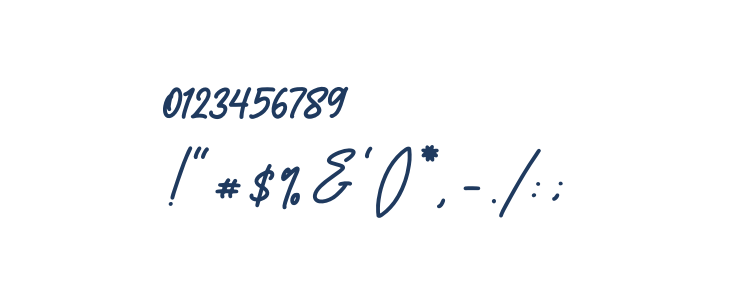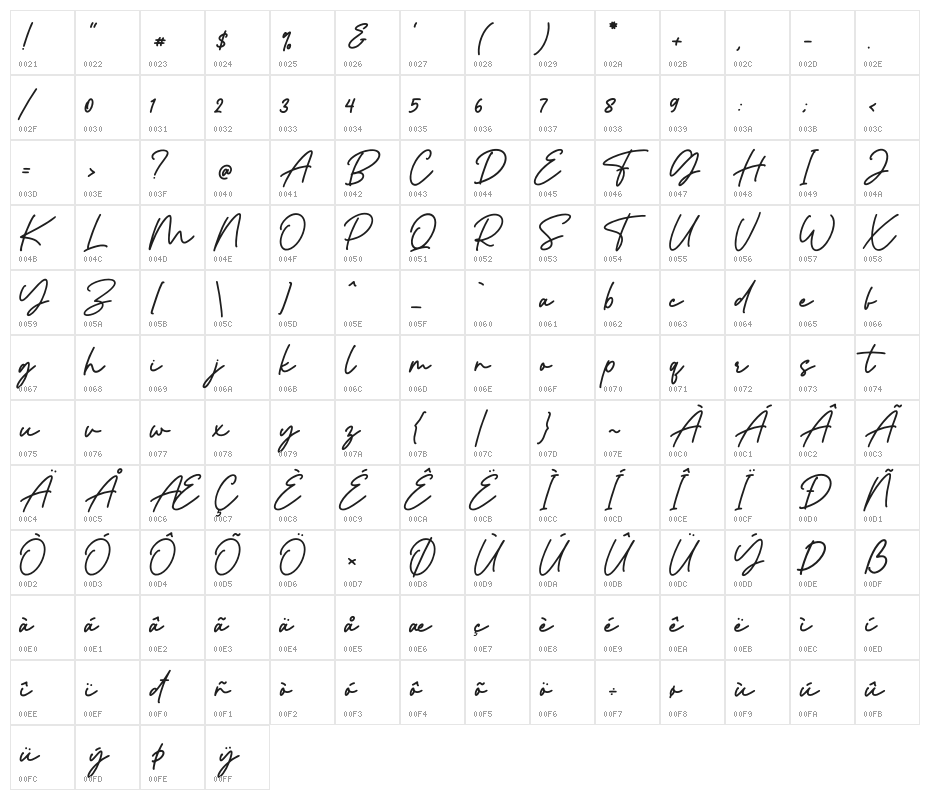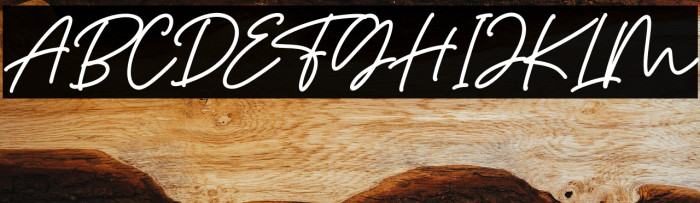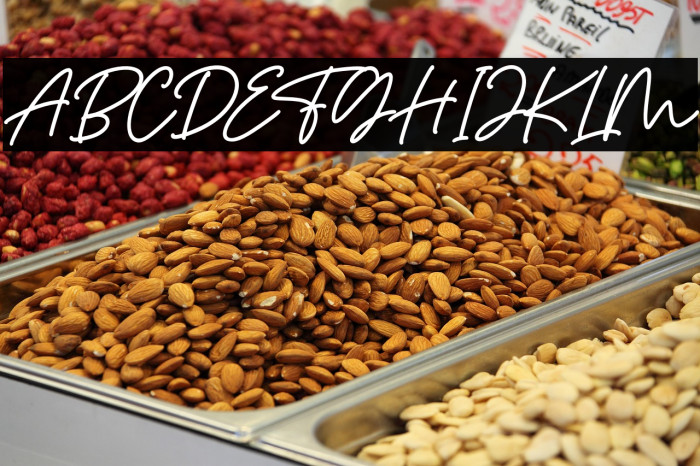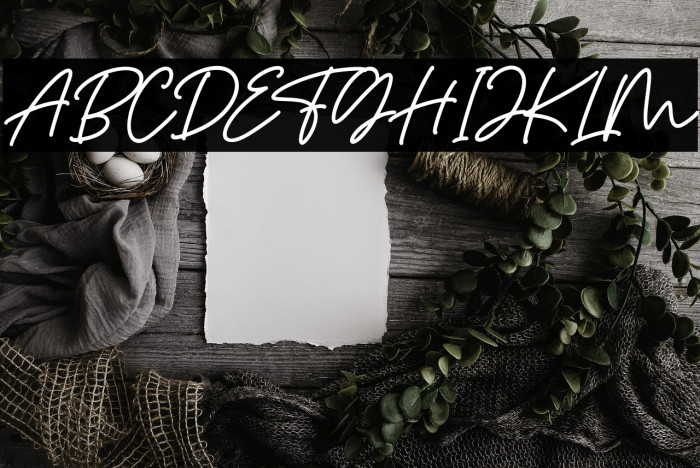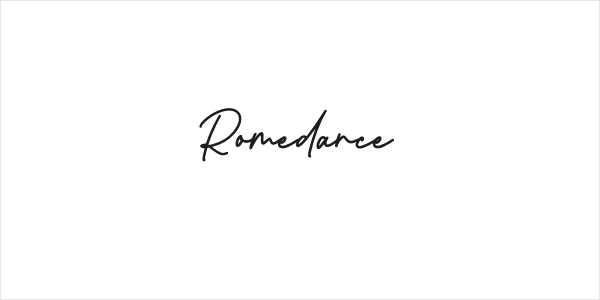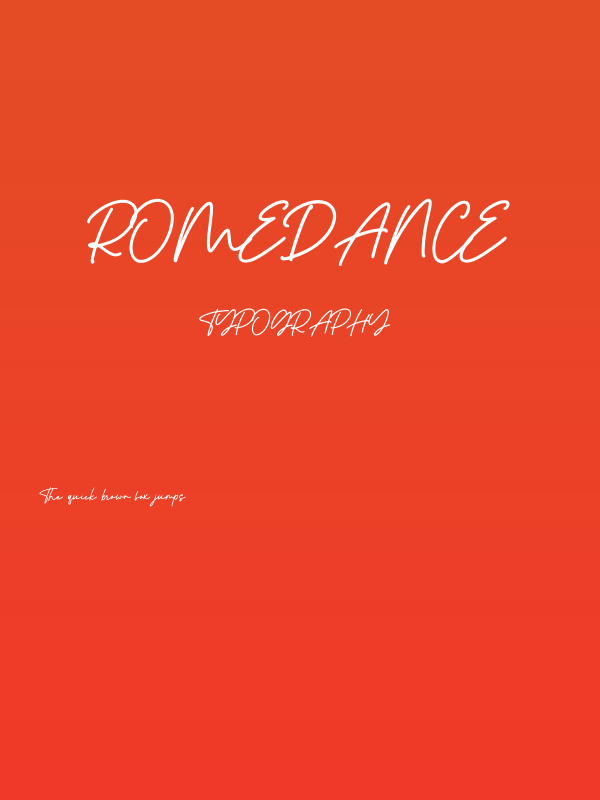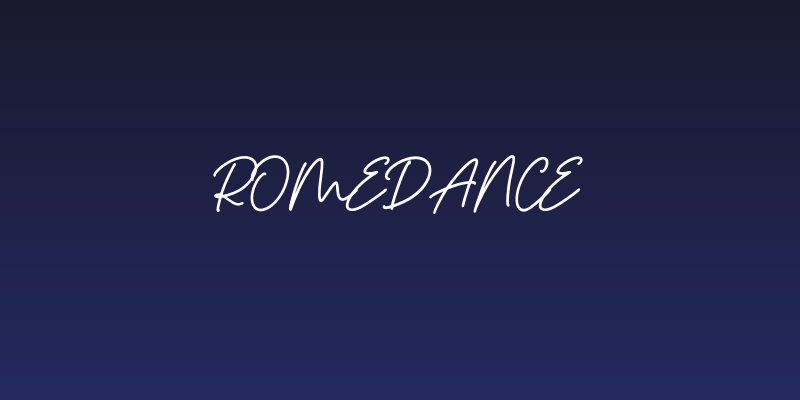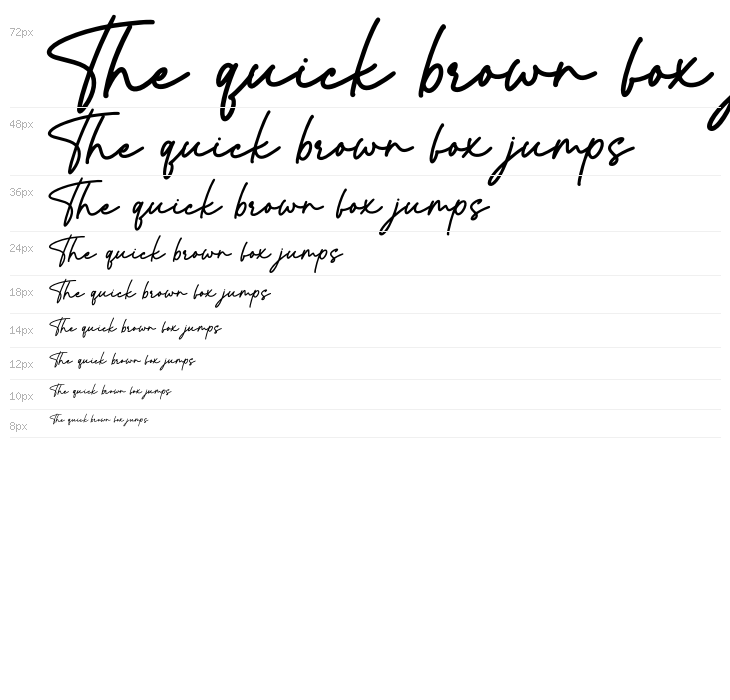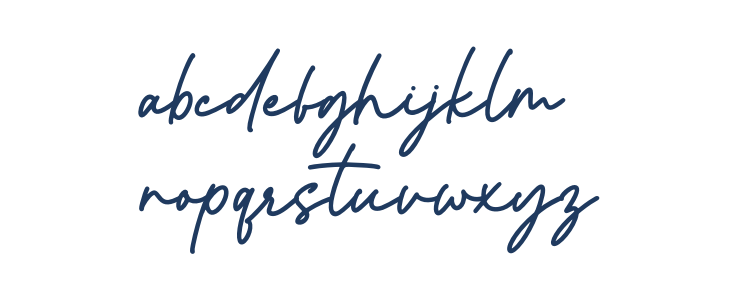
Romedance Font
Romedance Description
This font features a lively and flowing script style, characterized by its elegant and fluid strokes. The letters are connected in a seamless manner, creating a sense of movement and grace. The uppercase letters are bold and slightly slanted, while the lowercase letters maintain a consistent flow with a more delicate touch. The numerals and special characters are crafted with the same attention to detail, ensuring a cohesive look throughout. This font exudes a sense of sophistication and charm, making it ideal for projects that require a personal and artistic touch.